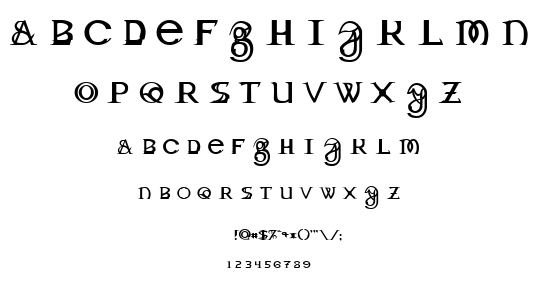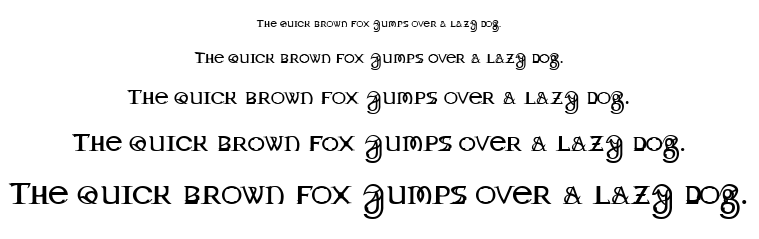
Toril
Toril Font
Former “Dragon Master”, cleaned up a bit. This is based on the last iteration of the logo used by TSR/WotC’s Dragon and Dungeon Magazines.